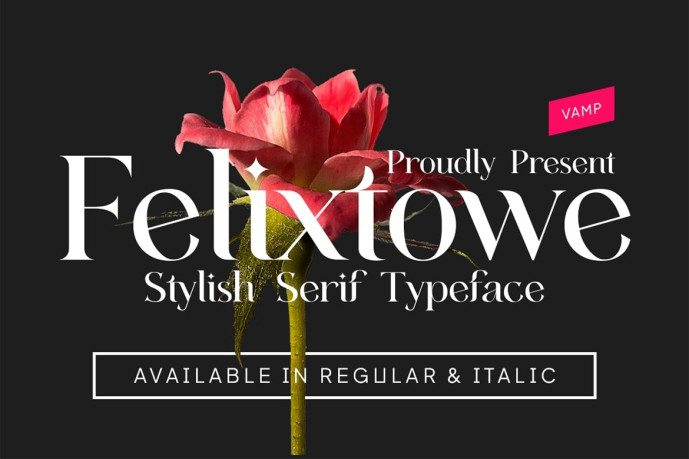
Felixtowe Serif Font
Designer: Vampstudio
Felixtowe Serif Font is a modern and elegant serif typeface designed with refined curves, elegant contrast, and contemporary character forms. Perfect for beauty brands, fashion promotions, editorial layouts, packaging, and high-end advertising, Felixtowe brings a fresh and sophisticated touch to any visual project. Its expressive letters and clean structure make it ideal for impactful headlines, luxury branding, and showcasing remarkable products.
Designed to offer both style and versatility, Felixtowe includes a full set of uppercase and lowercase letters, multilingual support, punctuation marks, numbers, and smooth letter spacing optimized for professional design work.